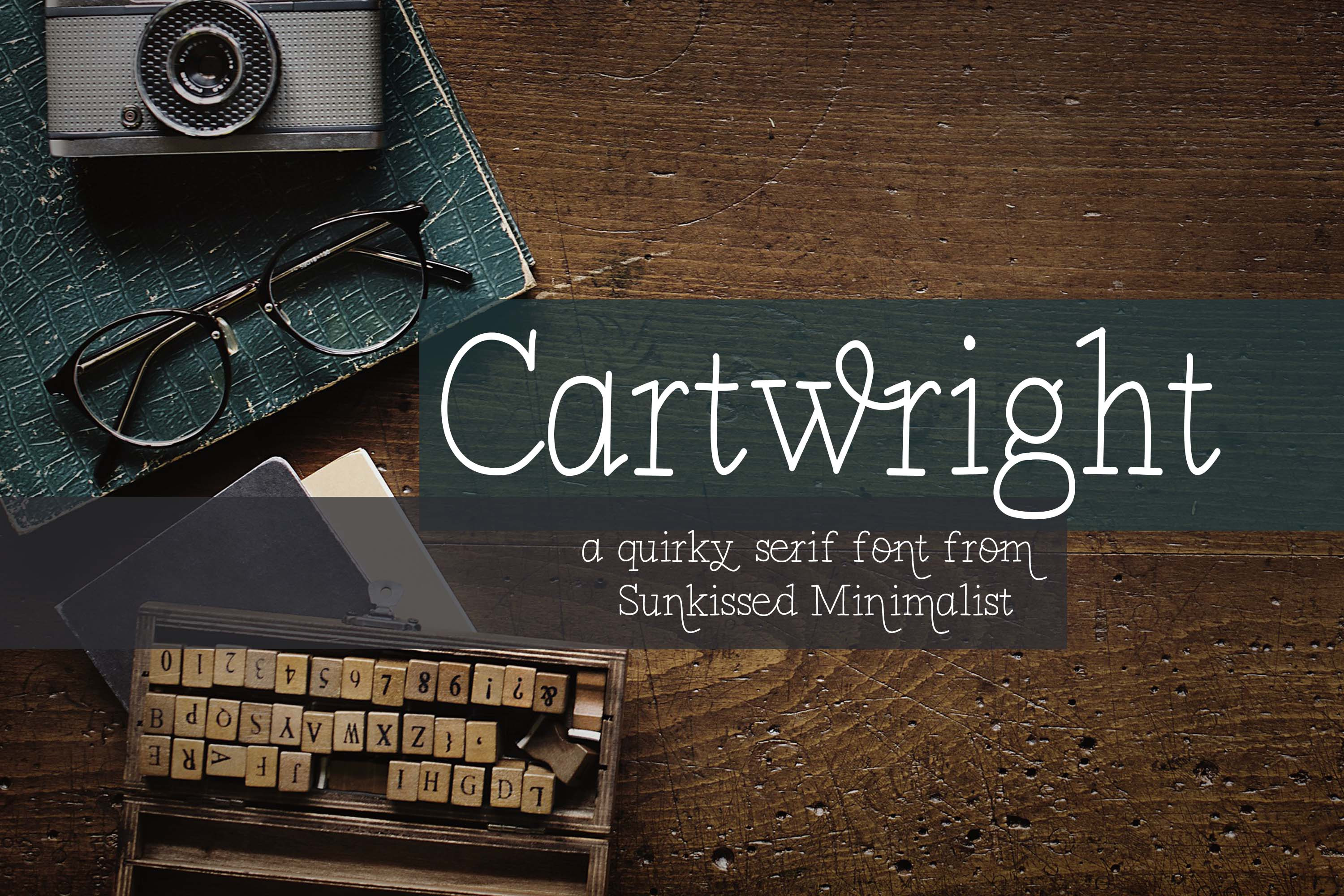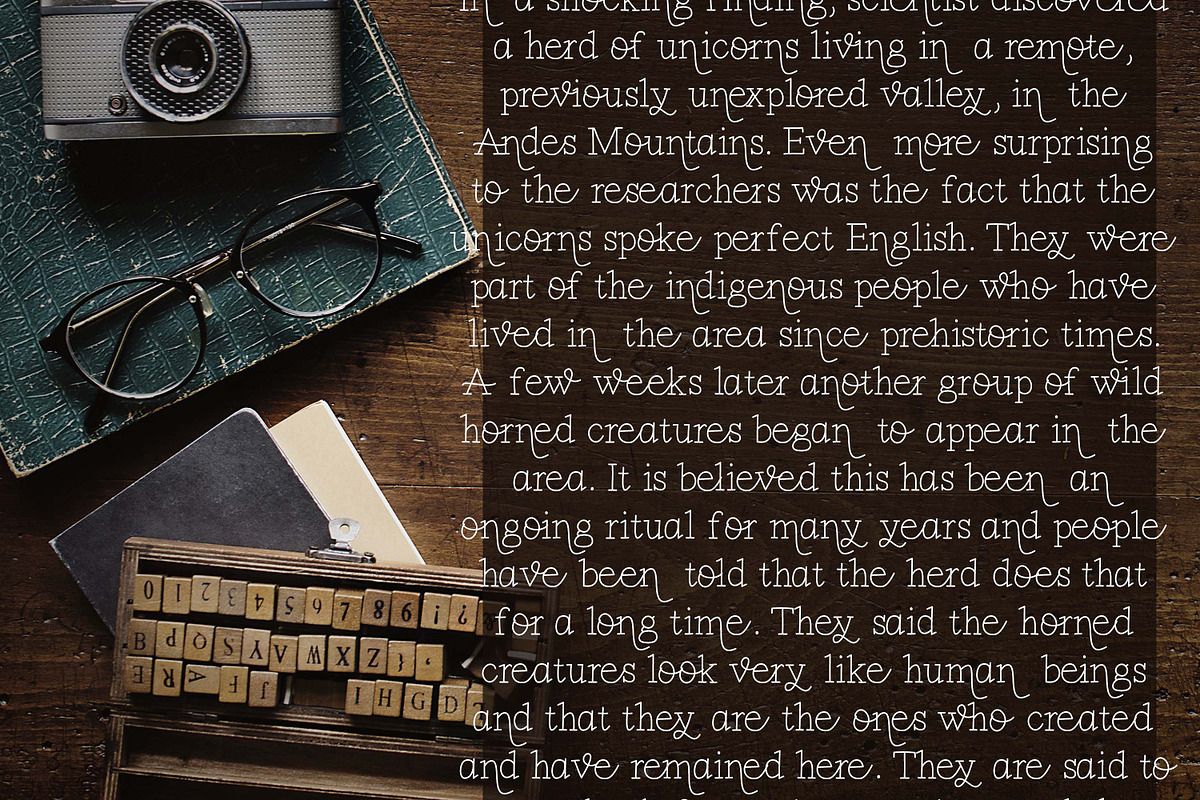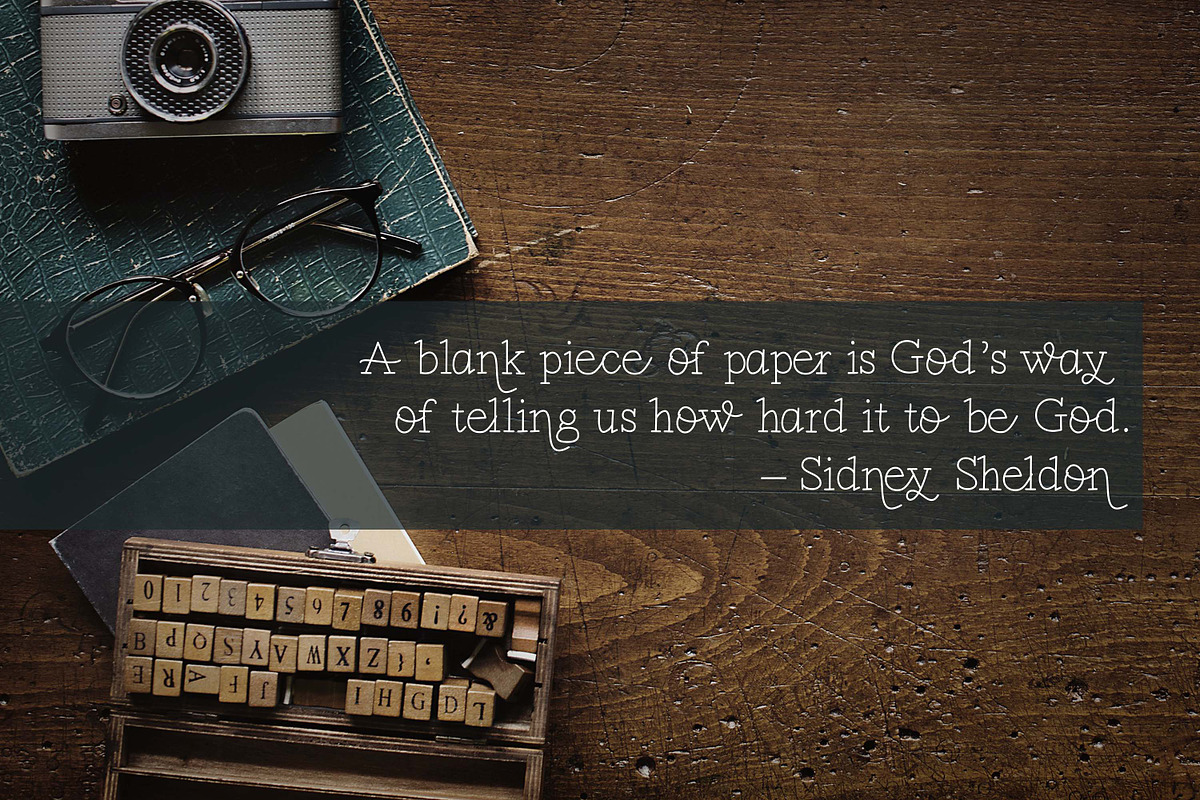
Cartwright | A fun typewriter font
CartWright is a quirky, serif font with lots of character This font is perfect for an assortment of things and pairs very well with others (especially script fonts!). This font has one weight, and you can use this font for all sorts of things, including:
- greeting cards
- invitations
- posters
- t-shirt designs
- SVG Designs
- And more...